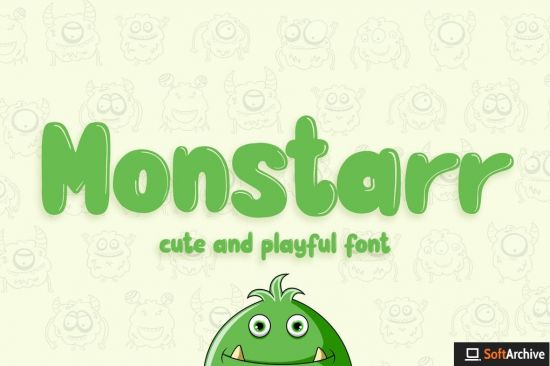
Monstarr is a cute and playful hand made font. Work great for any design needs: logo, branding, modern advertising design, logos, poster quote, book/cover Title, editorial design, website/blog, card, custom mug, pillow, t-shirts, and any hand-lettered needs.